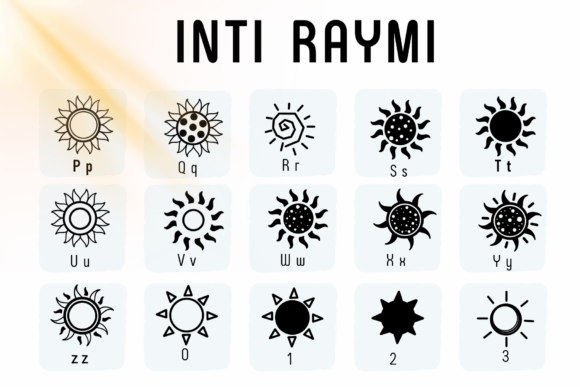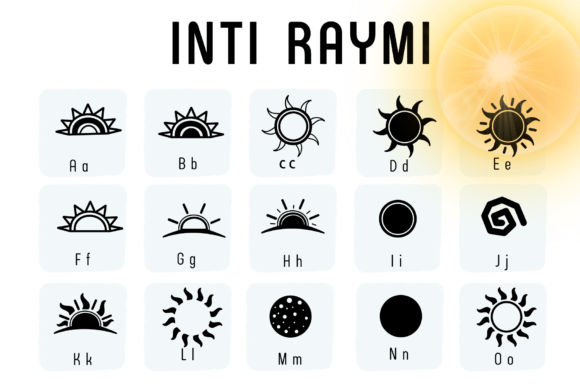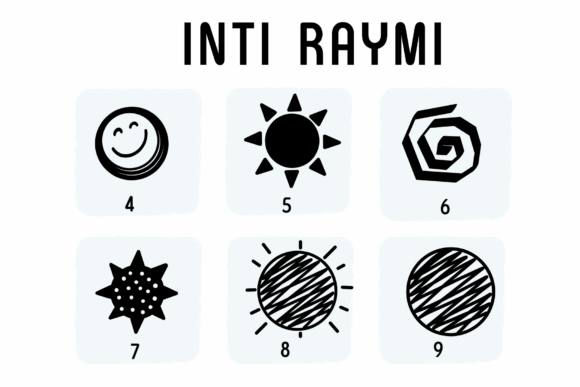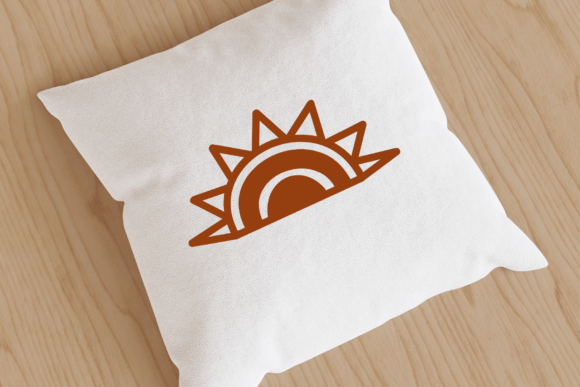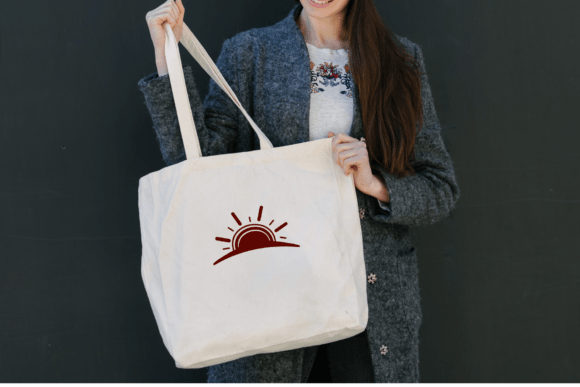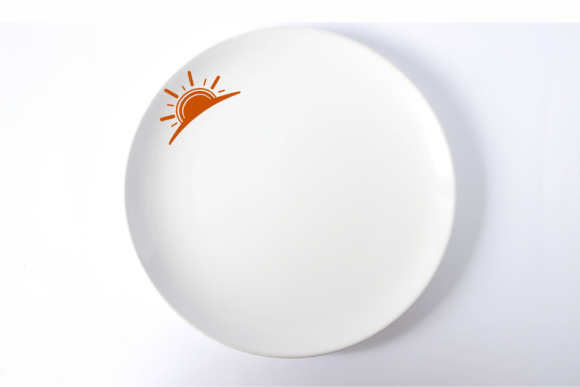
Introduction to Inti Raymi Font
Do you remember that moment when you’re brainstorming ideas for a creative project, and suddenly, the perfect font pops into your mind? It’s as if the design universe is speaking to you, and you can almost feel the excitement building up. For designers and crafty enthusiasts alike, finding the right font can make all the difference between a good project and a great one.
Enter the Inti Raymi Font, a stunning dingbats font with a sketched style that’s sure to elevate your next creative endeavor. Whether you’re designing a wedding invitation, creating a DIY project, or crafting decorations for a special event, this font is the perfect addition to your design resource arsenal.
Key Features of Inti Raymi Font
- Unique Andean-inspired design, ideal for creative projects related to South American culture and heritage.
- Comes with a transparent background, making it easy to use as a design resource for various applications.
- High-quality font with a clear and readable appearance, suitable for both digital and print designs.
- Includes a range of characters and symbols, making it a versatile design resource for creative projects.
- Perfect for designers looking for a unique and culturally relevant font to enhance their designs.
Honest Review: Inti Raymi Font
As a designer, I’m always on the lookout for high-quality fonts to enhance my creative projects. Recently, I came across the Inti Raymi Font, and I was eager to give it a try.
What works well: ✨ The Inti Raymi Font is incredibly versatile, making it perfect for a variety of design projects, from logos to brochures. Its unique blend of modern and traditional elements gives it a distinctive flair that can add depth and character to any design. The font is also highly legible, even at smaller sizes, making it a great choice for body text.
Limitations: ⚠️ One thing to note is that the Inti Raymi Font may not be suitable for all types of projects. Its unique style may not appeal to every designer or client, and it may not be the best choice for more conservative or traditional designs.
Overall impression: I’m impressed with the Inti Raymi Font’s quality and versatility. It’s a great addition to any designer’s toolkit, and I would definitely recommend it to anyone looking for a unique and high-quality font.
- Unique blend of modern and traditional elements
- Highly legible, even at smaller sizes
- May not be suitable for all types of projects
Inti Raymi Font
The Inti Raymi Font is a unique design resource ideal for creative projects that require a touch of Andean flair. This high-quality font features a transparent background, making it easy to integrate into various design elements.
Tips for Getting the Most Out of Inti Raymi Font
Use the Inti Raymi Font to add a touch of cultural flair to your designs. Experiment with different font sizes, colors, and combinations to create unique and visually appealing designs.
The Inti Raymi Font is perfect for projects related to Peruvian culture, South American themes, or any design that requires a unique and exotic touch. You can use it to create invitations, posters, and other marketing materials.